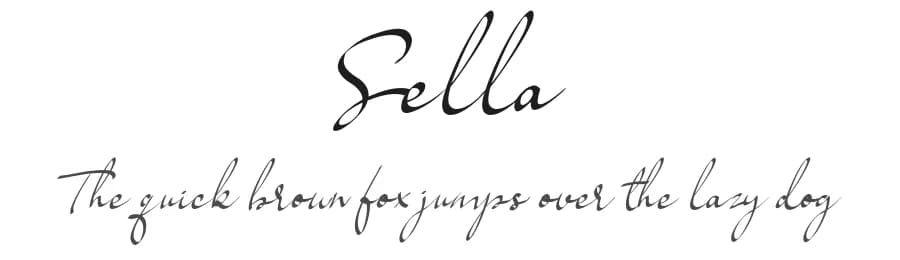
About Sella Font
Sella Specifications
| Font Family | Sella |
| Full Name | Sella-Regular |
| Glyph Count | 106 glyphs |
| PostScript Name | Sella-Regular |
| Designer | InkCreativeArt |
Sella Font is a script font that shines as a display or heading face. Pair it with a clean sans-serif or serif font for body text β the contrast creates a clear hierarchy while the two styles stay balanced and easy to read.
Sella Font